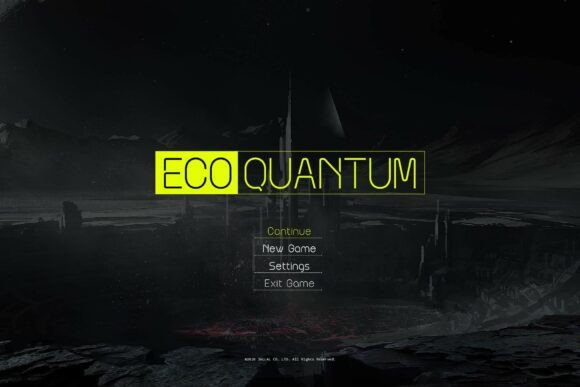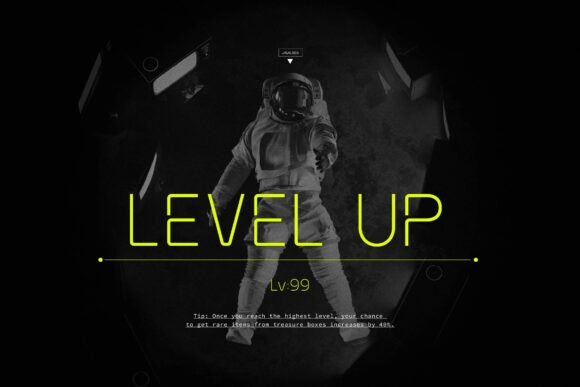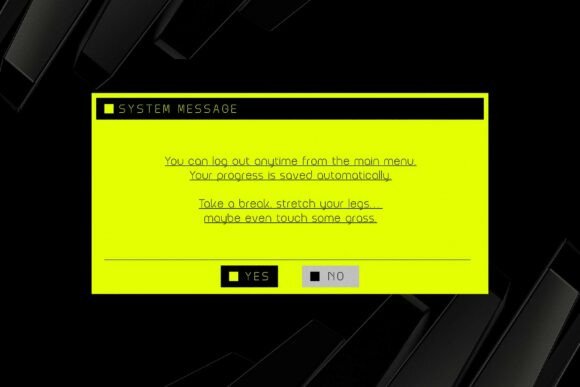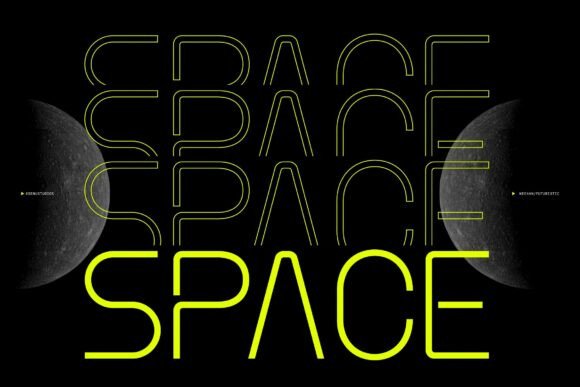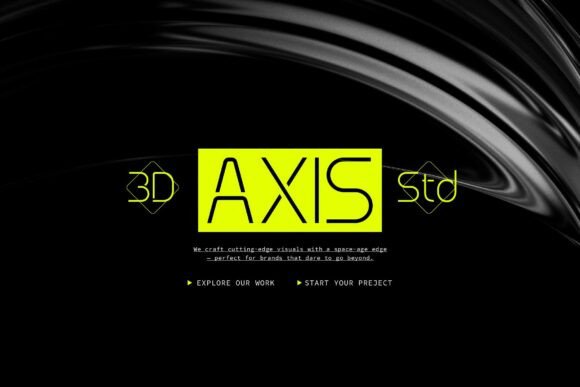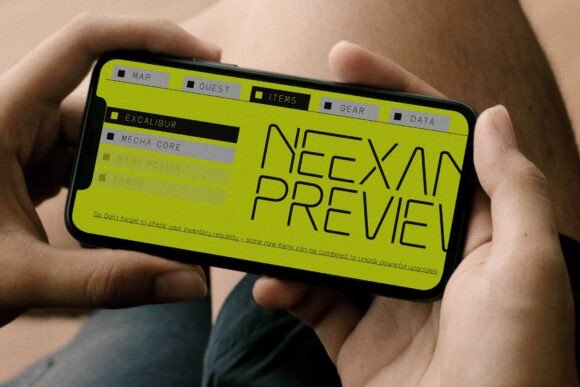
Introduction to Neexan Font
Neexan Typeface is a sleek, futuristic display font from Denustudios, engineered for bold, modern branding.
Its streamlined geometry, tight rhythm, and techno-inspired shapes deliver high impact in logos, posters, packaging, apparel, and UI headers Sharp yet readable forms make short titles snap, while alternate characters and built-in ligatures let you craft distinctive wordmarks and monograms.